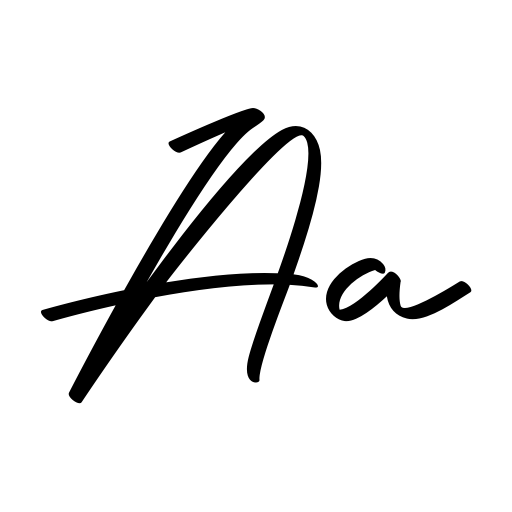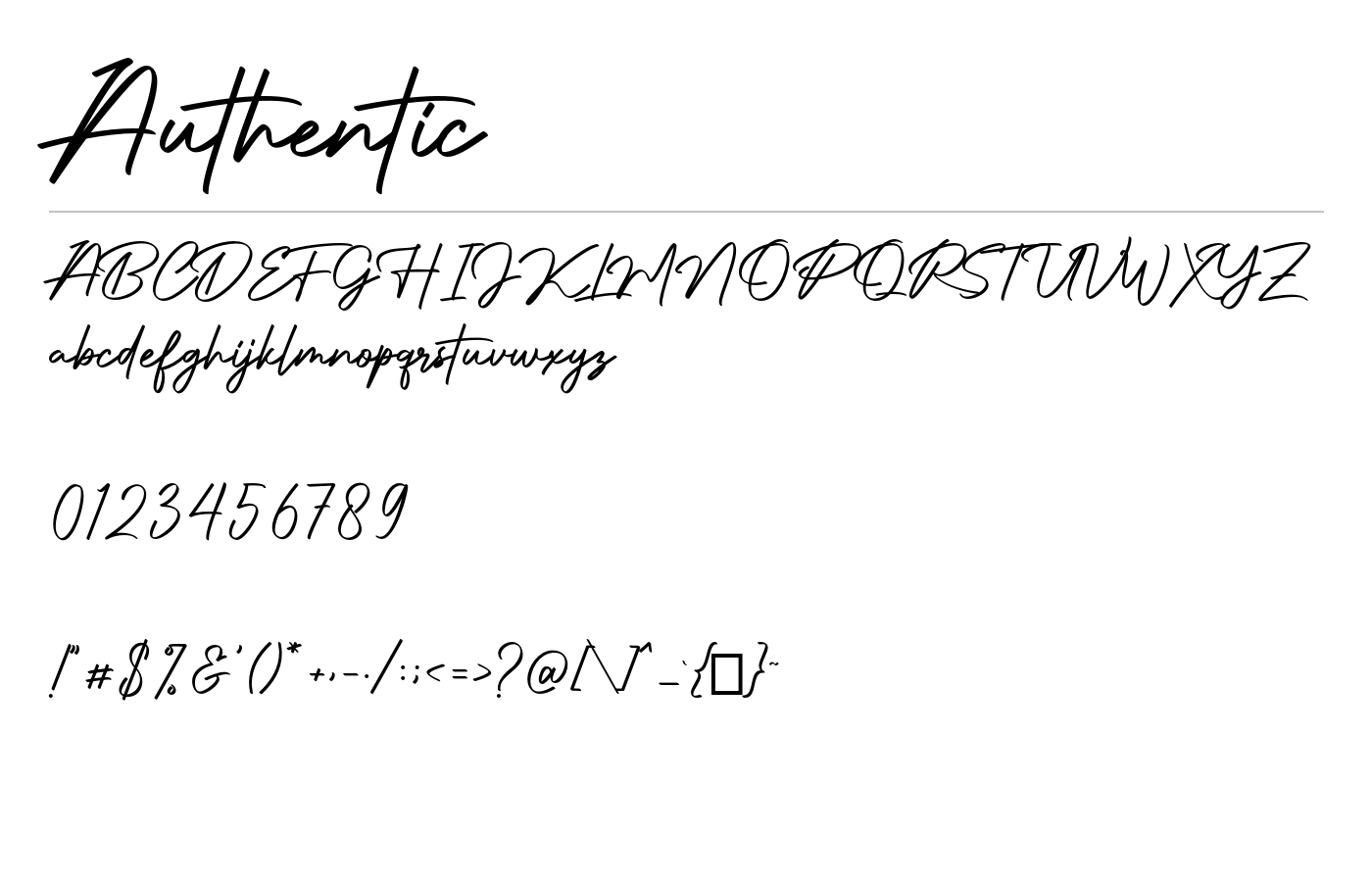
Authentic is a graceful script font with a modern, handwritten feel, featuring smooth, flowing strokes and a light to regular weight. Its elegant, slightly condensed letterforms and natural, casual style make it perfect for branding, invitations, and creative projects that seek a personal and sophisticated touch. This font works especially well in settings where a friendly yet refined atmosphere is desired, such as lifestyle blogs, fashion brands, and elegant packaging.
Authentic Font
About Authentic Font